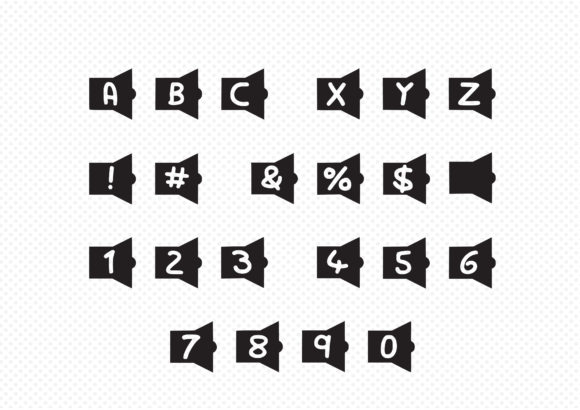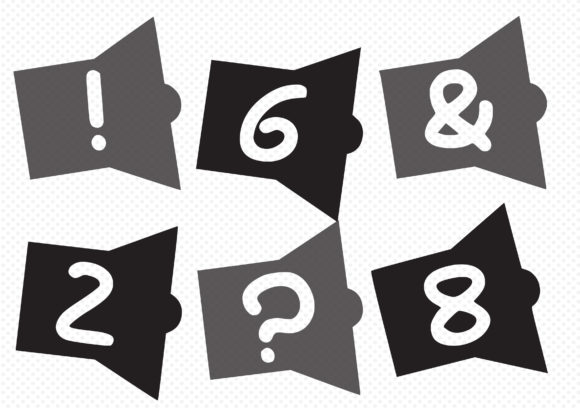
Introduction to Play Sound Font
Have you ever been stuck on a creative project, desperately searching for the perfect font to capture the essence of your message? You know, that moment when the entire design falls into place, and you can finally breathe a sigh of relief. It’s a feeling we’ve all experienced at some point in our design journey. For me, it was when I stumbled upon the Play Sound Font – a game-changing decorative font that brings sound and music to life in a way that’s both fun and functional.
This unique font is a must-have for designers looking to add a touch of creativity to their projects. Whether you’re working on a cover, banner, product packaging, or children’s design, the Play Sound Font is an excellent resource to have in your arsenal. With its transparent background and high-quality design, it’s perfect for adding a pop of personality to your work. And the best part? It’s free to download, making it an invaluable addition to any design library.
Key Features of Play Sound Font
- High-quality sound effects library with a wide range of creative project sounds, ideal for designers and artists.
- Transparent background option for seamless integration into any design, ensuring a professional and polished look.
Honest Review: Play Sound Font
As a designer, I’m always on the lookout for high-quality design resources to elevate my creative projects. Play Sound Font has been a game-changer for me, and I’m excited to share my honest review with you.
What works well: ✨ The font is incredibly versatile, with a wide range of sounds and effects that can be used to enhance any design. The transparent background feature is also a huge plus, making it easy to layer and blend with other design elements. The free download option is also a major plus, making it accessible to designers of all levels.
Here are some of my favorite features:
- Wide range of sounds and effects
Limitations: ⚠️ While the font is incredibly high-quality, there are some limitations to be aware of. The sound effects can be a bit overwhelming if used in excess, and some users may find the interface a bit cluttered. However, these are minor complaints, and the benefits far outweigh the drawbacks.
Overall, I’m thoroughly impressed with Play Sound Font. It’s a fantastic design resource that has taken my creative projects to the next level. If you’re looking for a high-quality font that can add some wow factor to your designs, I highly recommend giving it a try.
Tips for Getting the Most Out of Play Sound Font
To get the most out of Play Sound Font, experiment with different font sizes, colors, and styles to find the perfect fit for your design. You can also use it in combination with other design elements to create a unique look.
Play Sound Font is commonly used in creative projects that require high-quality text elements, such as logos, titles, and headings. It’s also a great design resource for anyone looking for a free download with a transparent background.